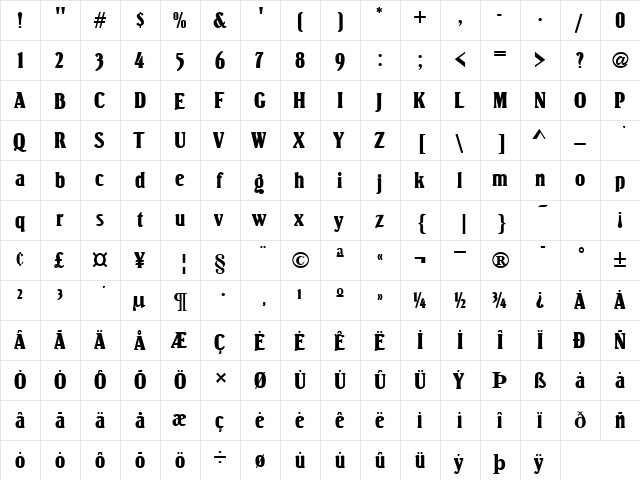
Springsteen Regular
Design Context for Springsteen Typeface
Springsteen takes a measured approach to typography — its balanced proportions and neutral character make it a reliable workhorse for both digital and print work.